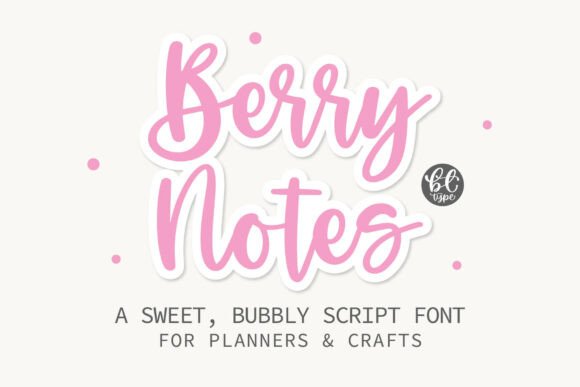
Discover the Charm of Berrynotes Font: A Sweet and Cheerful Handwritten Script
As a designer, I’ve had my fair share of moments where I’ve struggled to find the perfect font for a project. I recall working on a client’s planner design, wanting to infuse it with a playful yet elegant feel. After scouring through countless font libraries, I stumbled upon Berrynotes Font, and it instantly captured my heart. 💚 In this article, I’ll share my experience with this beautiful font, its features, and how to make the most of it in your designs.
A Personal Encounter with Berrynotes Font
I was immediately drawn to Berrynotes Font’s smooth, bubbly strokes and relaxed personality. It reminded me of cozy weekends, calm journaling sessions, and the joy of expressing myself creatively. I knew right then that it was the perfect fit for my client’s planner design. The font’s clean lines and hand-crafted touch gave my design a unique, casual yet polished look that my client loved.
What I Love About Berrynotes Font ✨
- ✅ Handwritten script style with a bubbly twist: Berrynotes Font has a distinctive, cheerful feel that’s perfect for designs that require a personal touch.
- ✅ Clean, smooth lines for easy cutting: This feature makes it ideal for crafters who use cutting machines like Cricut or Silhouette.
- ✅ Includes standard A-Z, a-z, numbers & basic punctuation: With full support for a wide range of characters, you can use Berrynotes Font seamlessly in any design software.
- ✅ Perfect for planner pages, sticker packs, greeting cards, and digital posts: Berrynotes Font’s versatility makes it suitable for various design projects.
While Berrynotes Font is an excellent choice for many design projects, there are a few minor limitations to consider:
- 🤔 Limited multilingual support: Berrynotes Font may not support all languages or special characters.
- 🤔 No built-in obliques or italics: If you need an italic version, you might need to rely on a separate font or creative workaround.
The Story Behind Berrynotes Font
Berrynotes Font was designed with the intention of capturing the warmth and coziness of handwritten notes. The creator aimed to craft a font that would evoke feelings of comfort and creativity, making it perfect for personal and professional design projects.
| Font Name | Berrynotes Font |
| Author | BitongType |
| What type of designs is Berrynotes Font best suited for? | Berrynotes Font is versatile and can be used for various designs, including planner pages, sticker packs, greeting cards, and digital posts. |